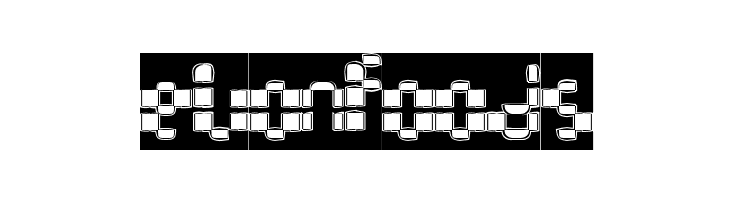
Albathros Yashline DEMO VERSION Font
- Font: Albathros Yashline DEMO VERSION
( Fonts by TarmSaft Font Factory - http://www.aska.nu/tarmsaft/ )
A futuristic, pixelated font with a tech-inspired, geometric design.